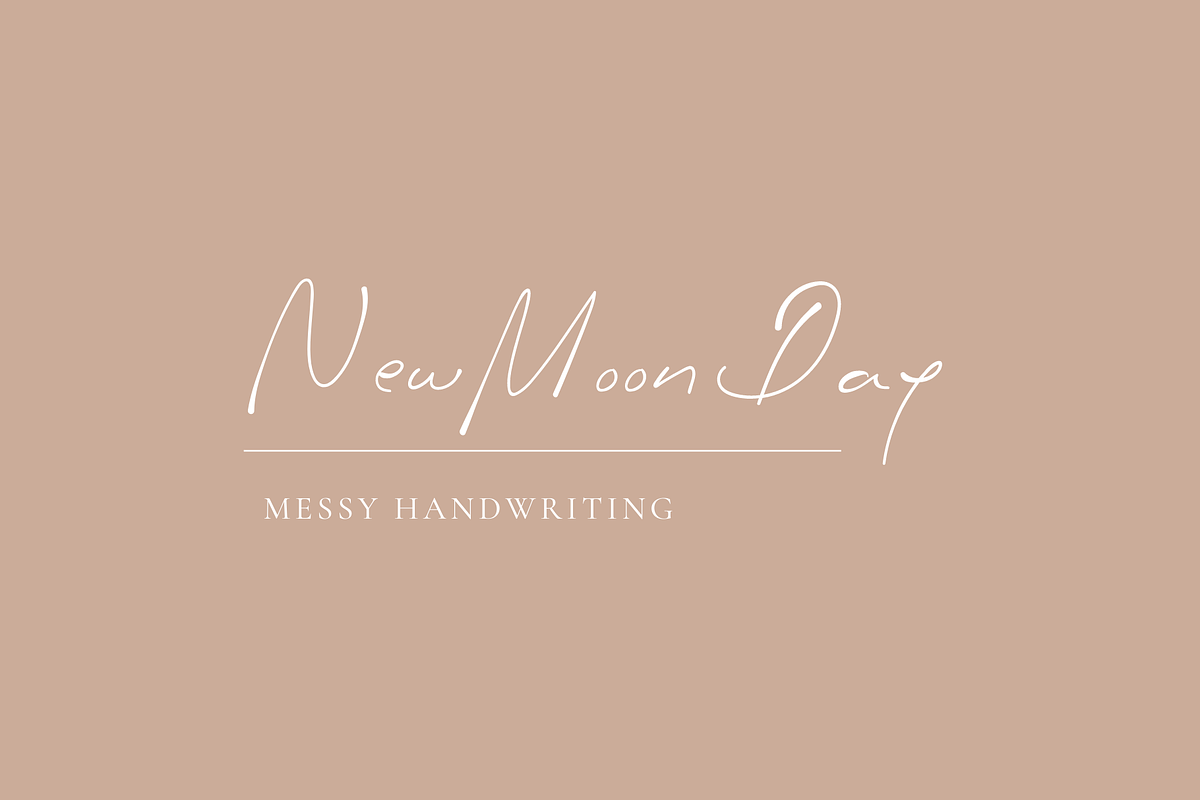
New Moon Day Script Font Free Download is a dreamy and elegant handwritten typeface that brings a touch of romance and sophistication to your designs. With its flowing strokes, smooth curves, and graceful style, it’s perfect for wedding invitations, love notes, branding for beauty products, feminine logos, and inspirational social media graphics. This script font feels personal, delicate, and full of charm.
The natural handwriting feel makes it ideal for adding a custom, authentic look to both print and digital designs. Whether you’re creating a soft logo or a heartfelt message, New Moon Day adds emotion and elegance effortlessly.